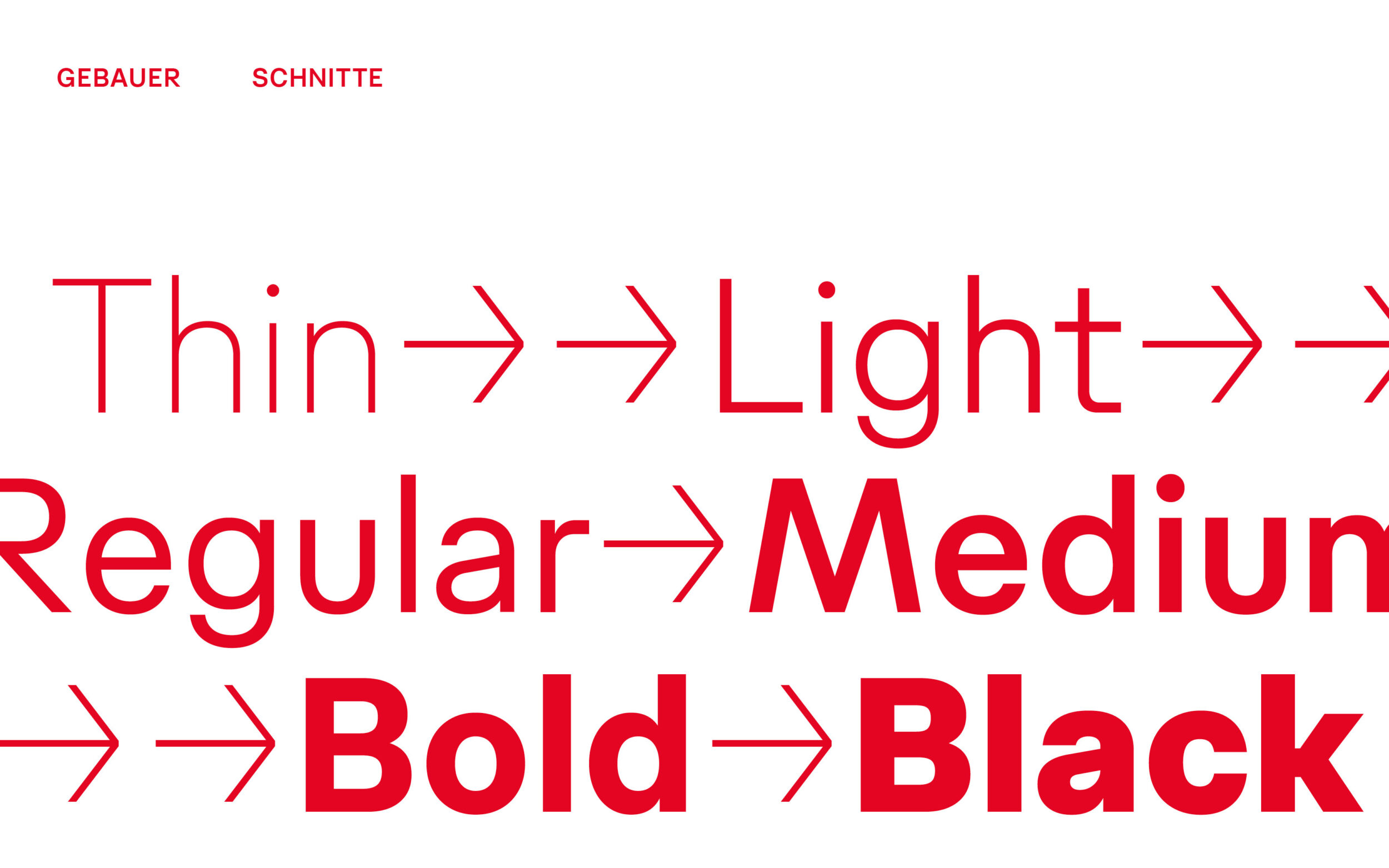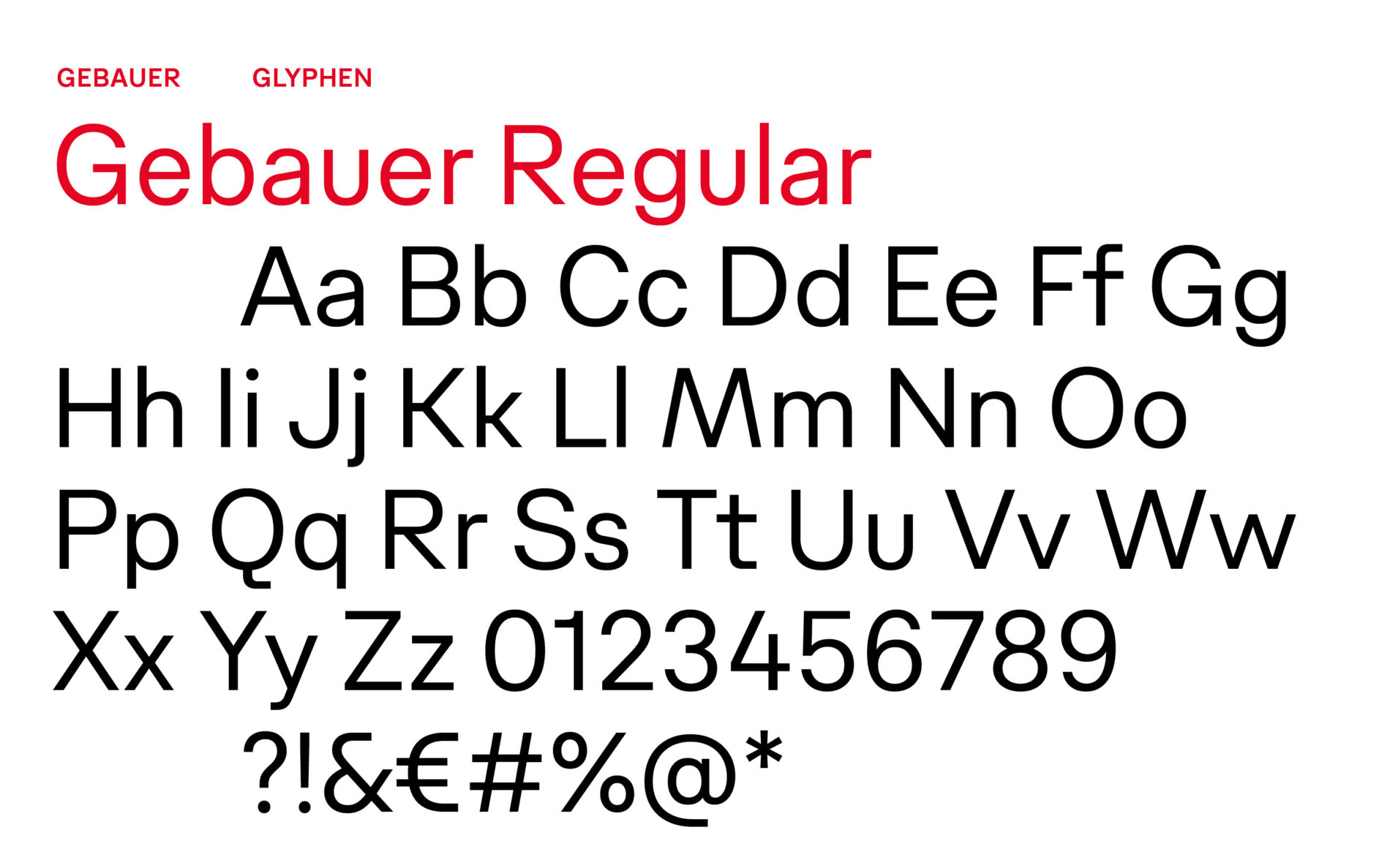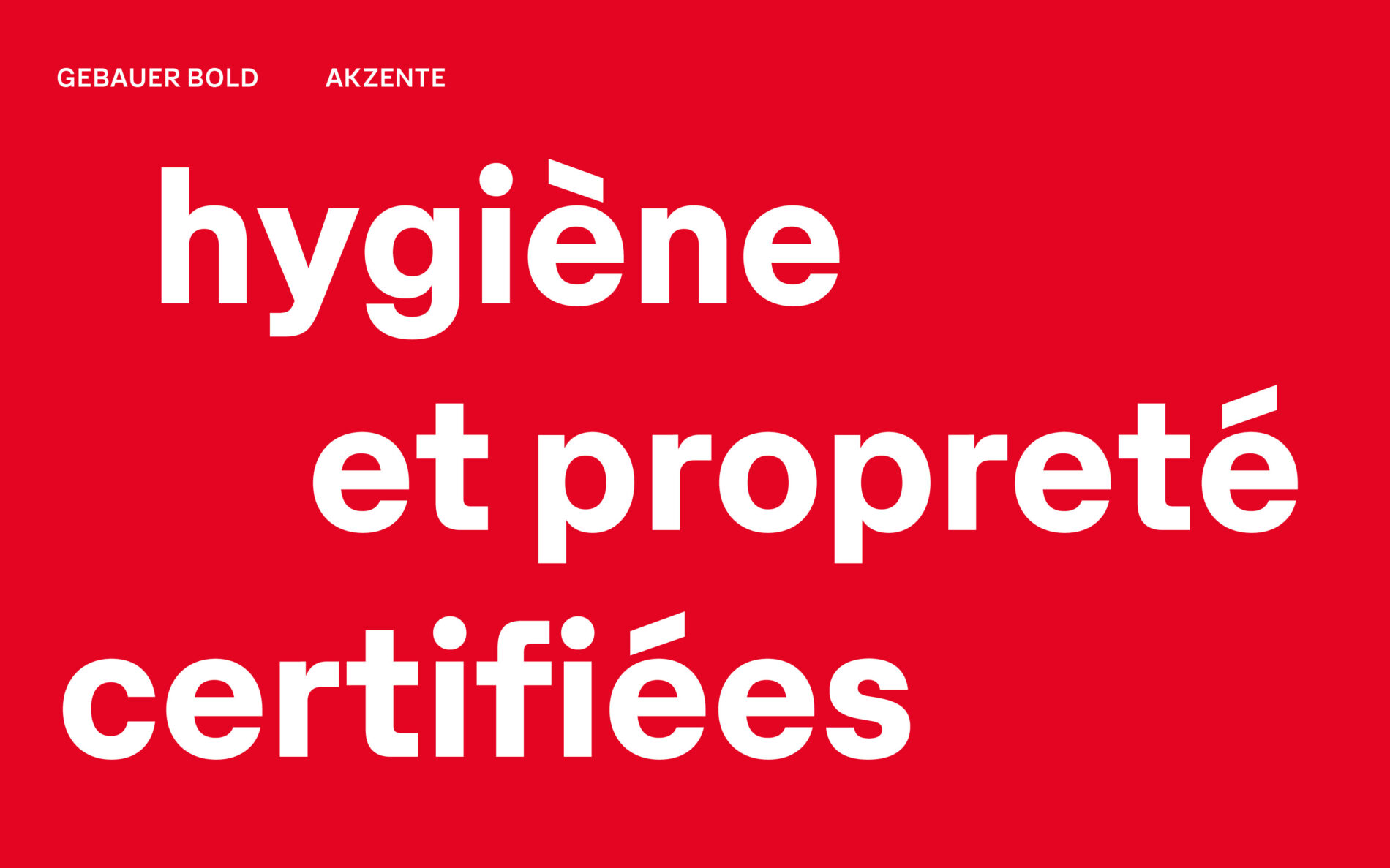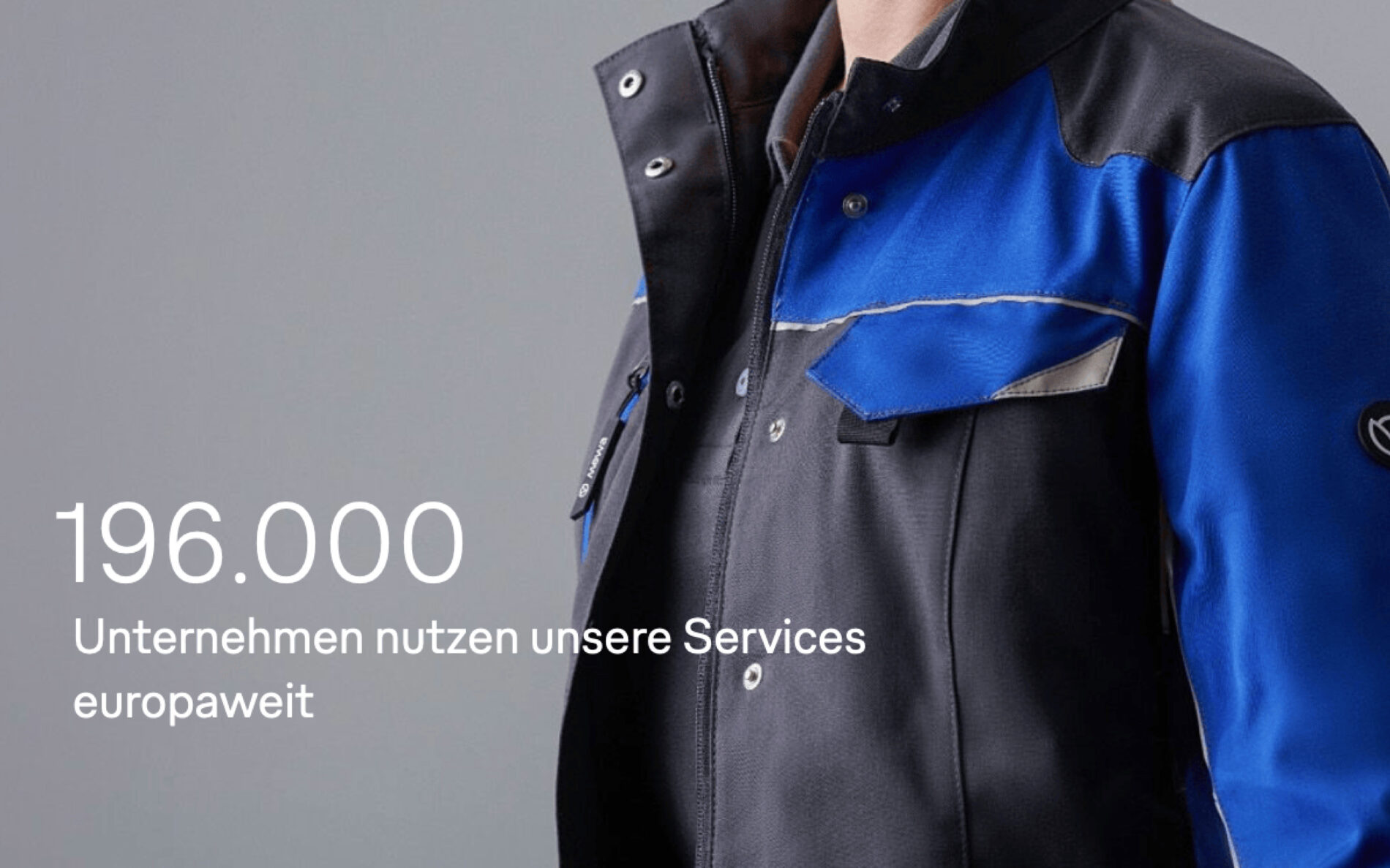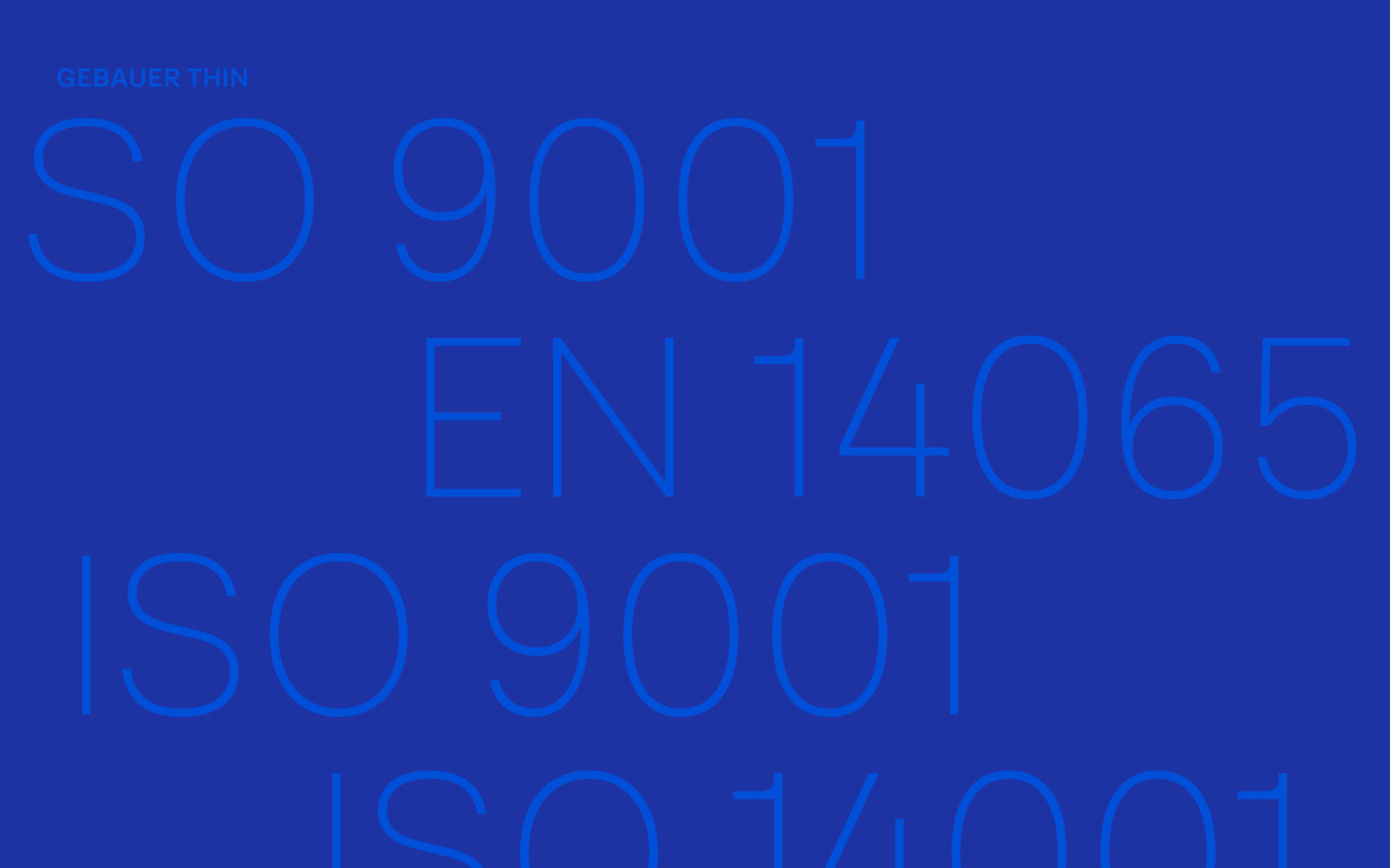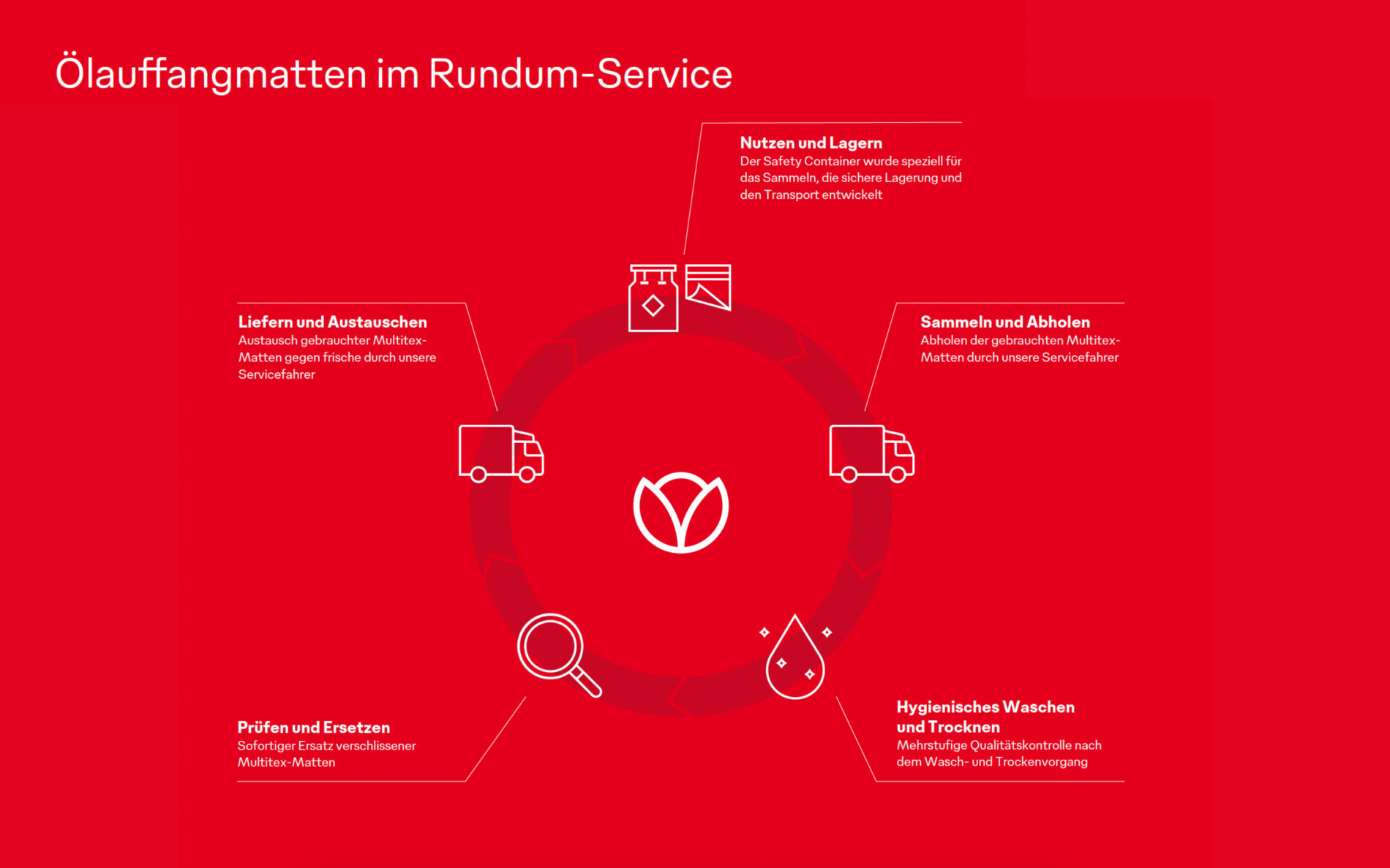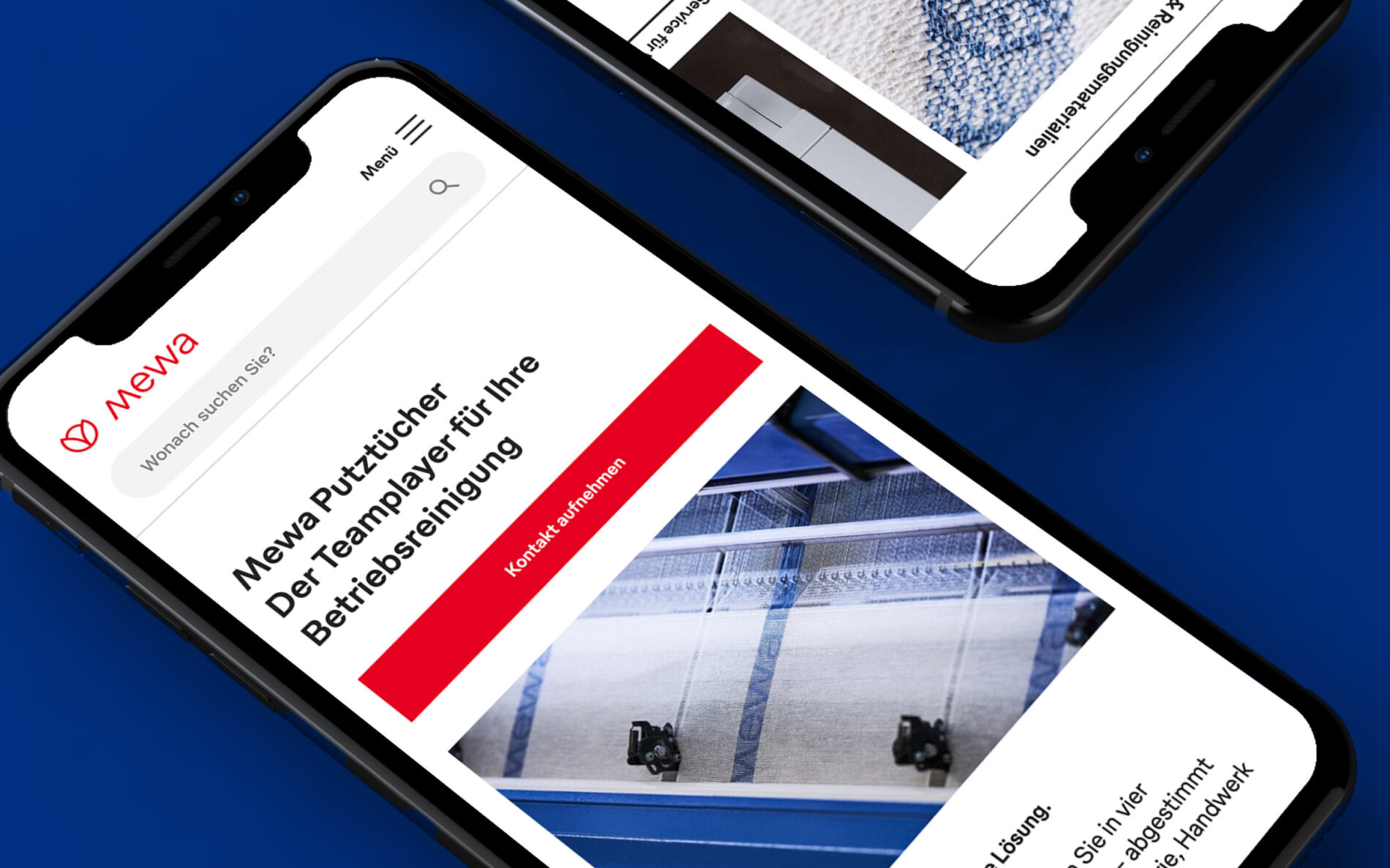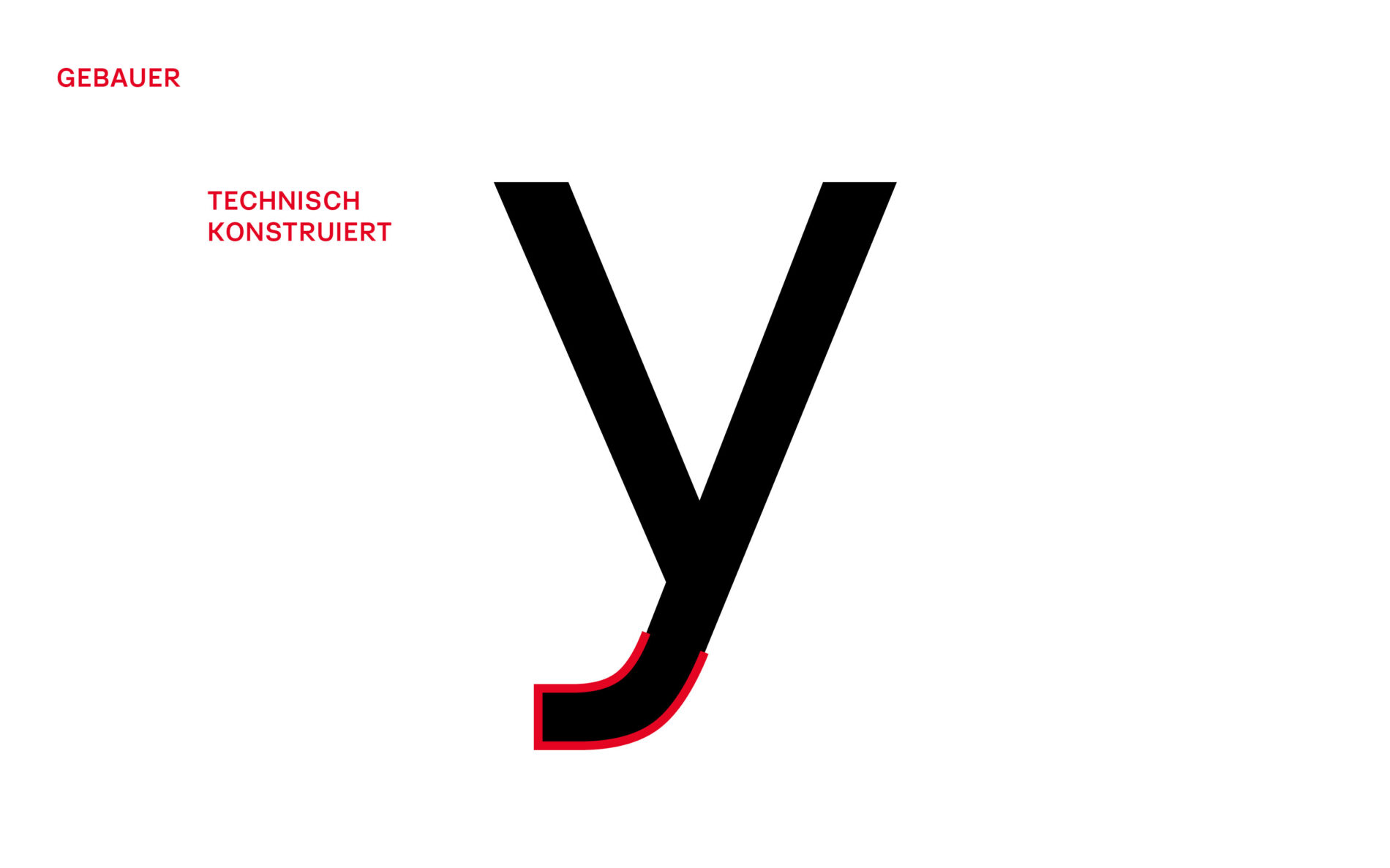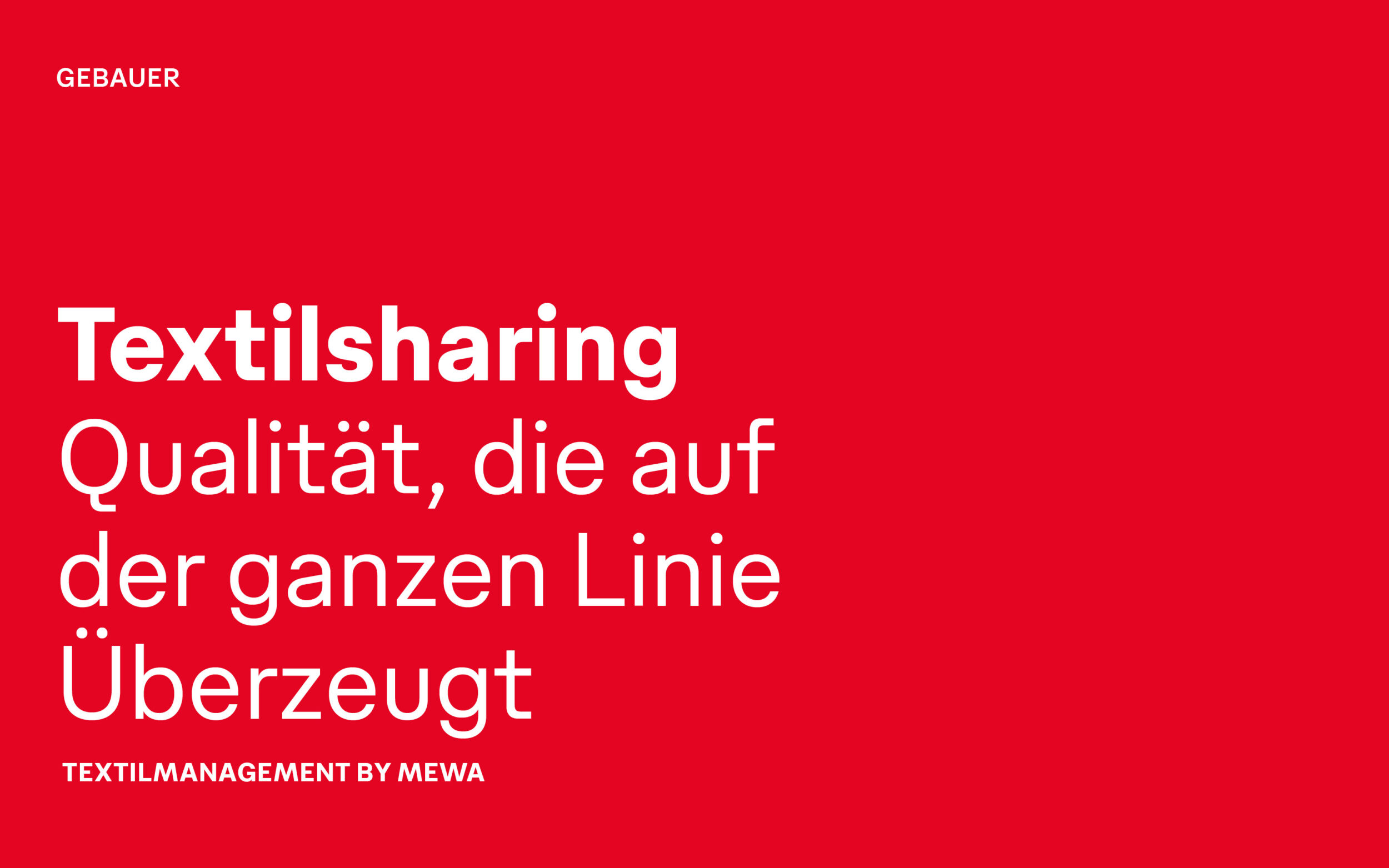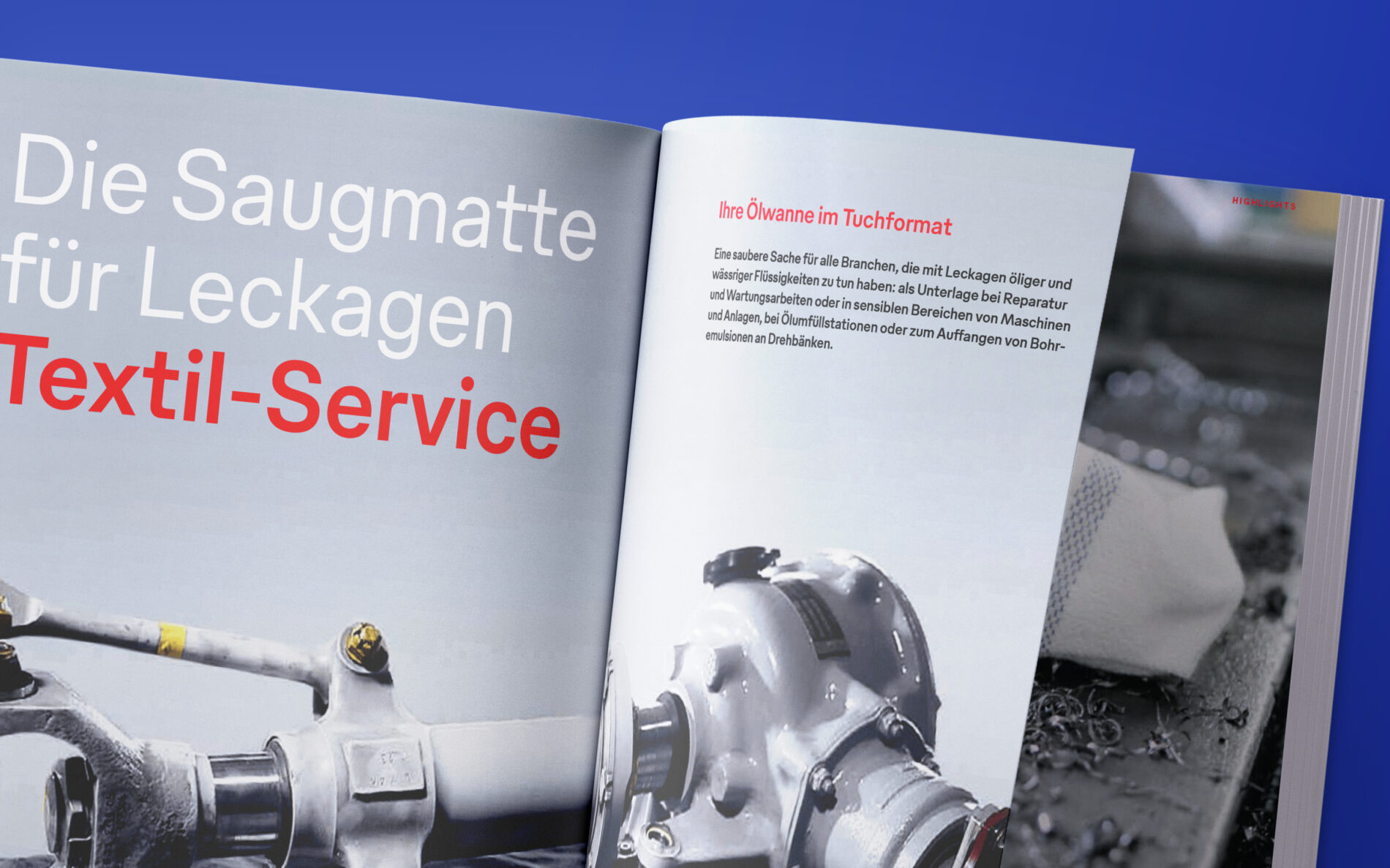
Mewa
Throughout its long history, spanning more than a century, Mewa has remained committed to progress. The adoption of the “Gebauer” corporate typeface reflects the company’s values of traditional innovation and modern clarity.
Forward-looking Reorientation
Mewa is one of the largest textile service providers in Europe and operates in a constantly changing business environment. In order to grow consciously and innovatively, the company has decided to reposition itself for the future. With a focus on a sustainable all-round service, Mewa is becoming more digital and opening up new markets. This transformation is also reflected in its visual identity. The brand strategists at Martin et Karczinski redefined the logo (the flower), the wordmark and the colour scheme, all integrated into a reduced look. The new, multi-award-winning brand identity conveys modern communication and radiates forward-looking strength and innovation.
Brand and Typeface Intertwined
The already revised flower logo was the starting point for the development of Mewa’s corporate typeface. Soft and organic forms alternate with technical constructions. The new logotype bases its letters on imaginary weaving threads, thus creating a link to textiles both visually and in terms of content. The brand values and the minimalist nature of the logo and wordmark set the tone for the typeface: clear, human, and both traditional and forward-looking.
Technology and Humanity Combined
When designing the custom typeface, it was important to make Mewa’s history tangible, while at the same time conveying the company’s growth and development. The typeface therefore combines the central themes of tradition and future. The strong curves in letters such as m, e, g or u create a human touch and anchor the tradition of the family business. The technical details in f, t and r give Mewa sovereignty and recognisability.
For the company’s first core product, the cleaning cloth, we developed a Unicase font tailored to the specific requirements of labelling. It is used where a block of lowercase letters without ascenders or descenders is required.
The reduced and clean look of the tailored typeface supports the brand attributes of freshness, purity and growth. The combination of rounded and technical elements unites past, present and future in one typeface. Adding personality and heritage to the brand, the official typeface of Mewa is named after its founding family, the Gebauers.
With good legibility across all media, the corporate typeface is a clear all-rounder for the 45 locations in 14 countries and all 5,700 employees. With 6 weights, the Gebauer typeface family conveys the personality of the brand in all of Mewa’s analogue and digital touchpoints.